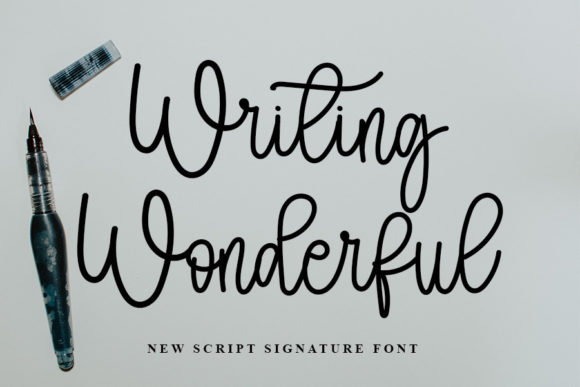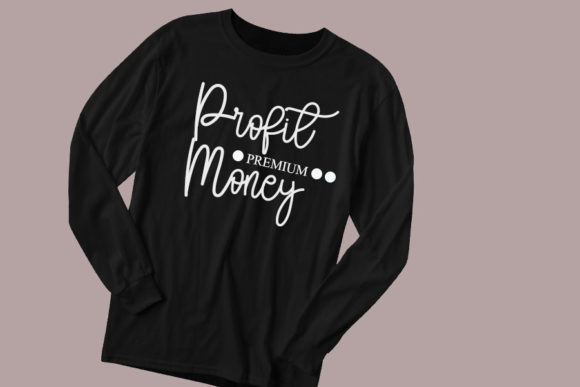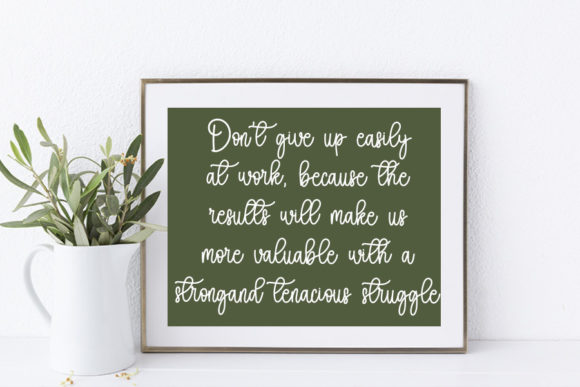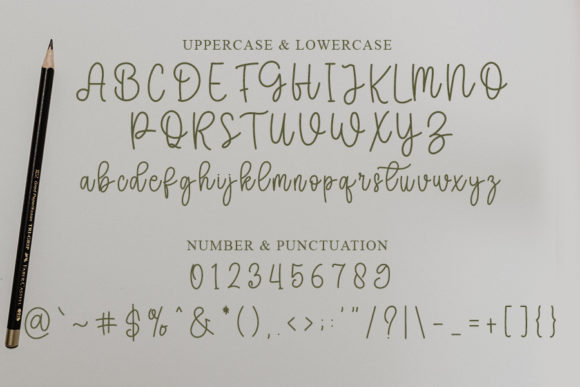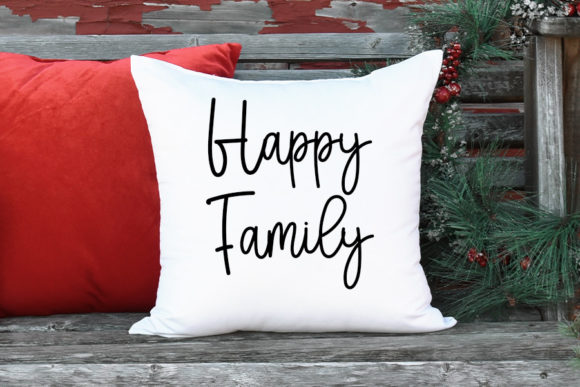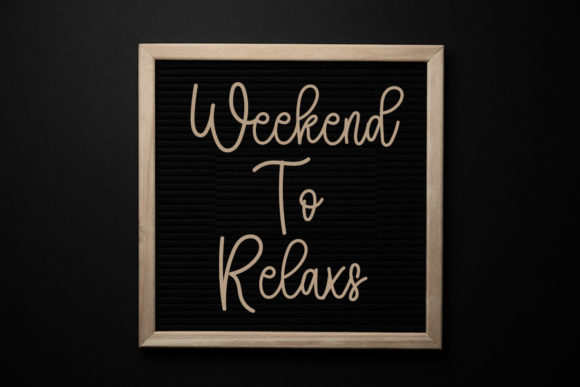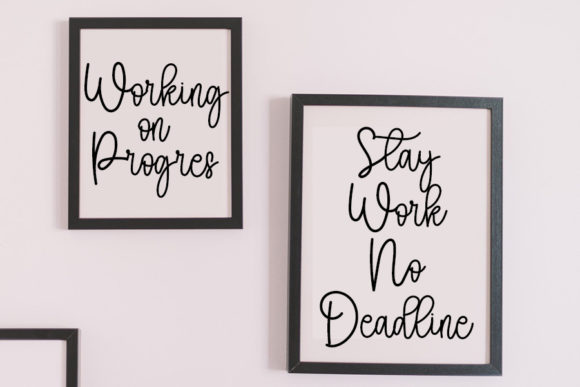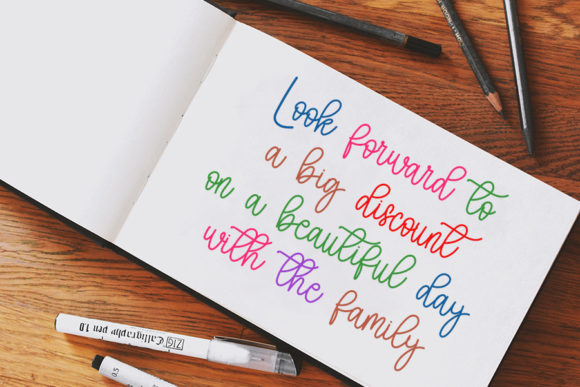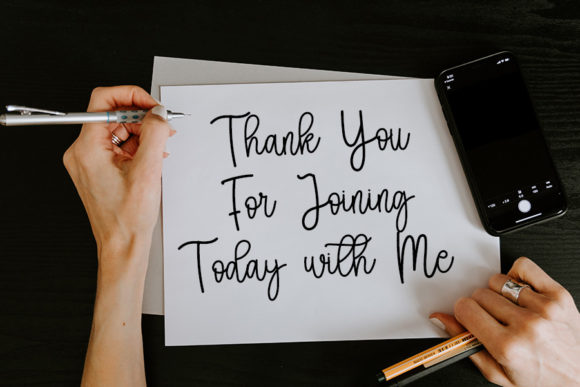
Writing Wonderful Font
Writing Wonderful is a beautiful and refined script font. It has a classy, elegant and modern look that can be used for logos, branding, invitations, stationery, wedding designs, social media posts, and much more!